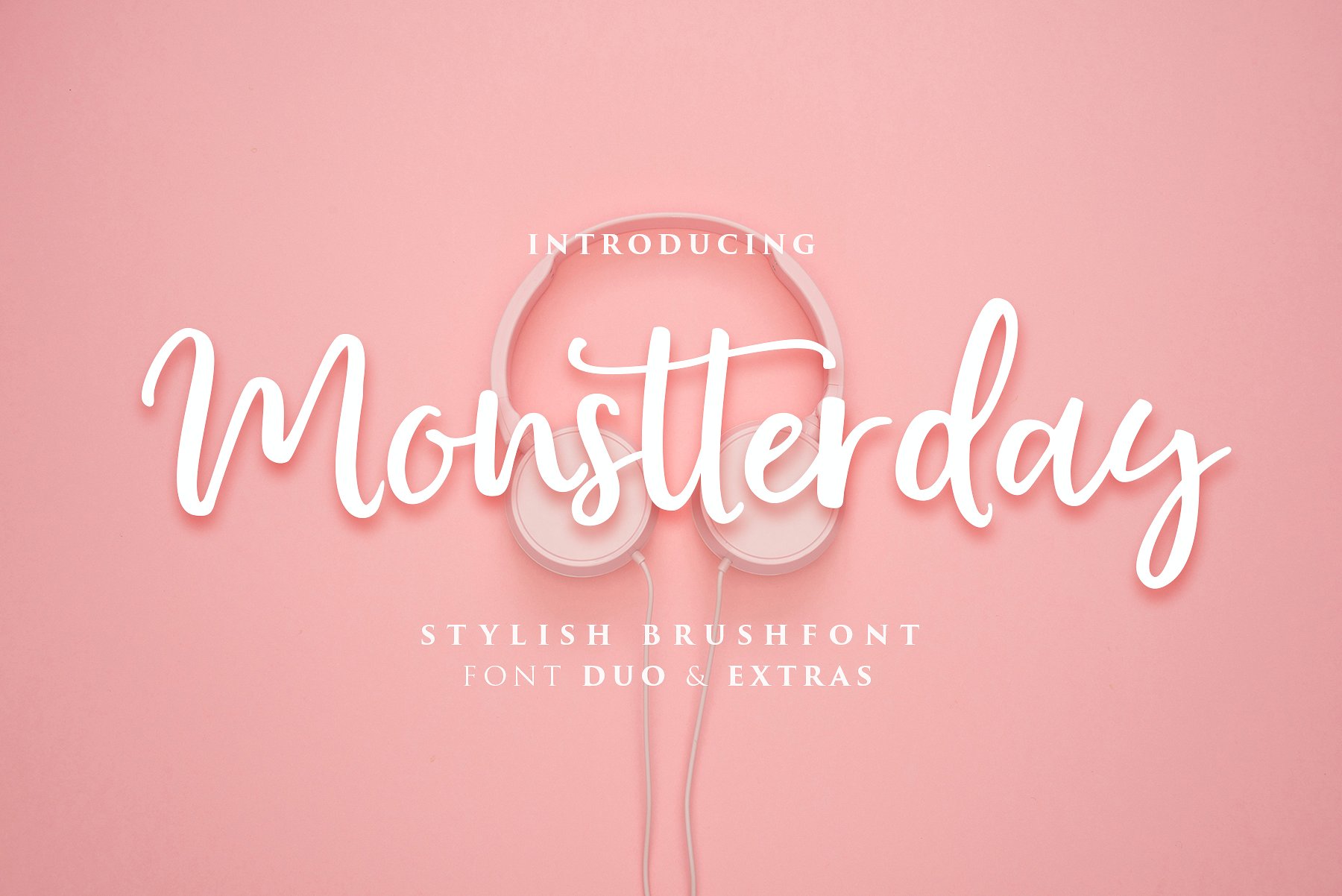
Monstterday Script Font
Hello Everyone 🙂 Here is a stylish brush font, it was created by Fargun Studio. Introducing Monstterday. Monstterday is handwritten stylish copperplate calligraphy fonts, combines from copperplate to contemporary typeface with a dancing baseline, classic and elegant touch. Can be used for various purposes. such as headings, signature, logos, wedding invitation, t-shirt, letterhead, signage, lable, news, posters, badges etc.